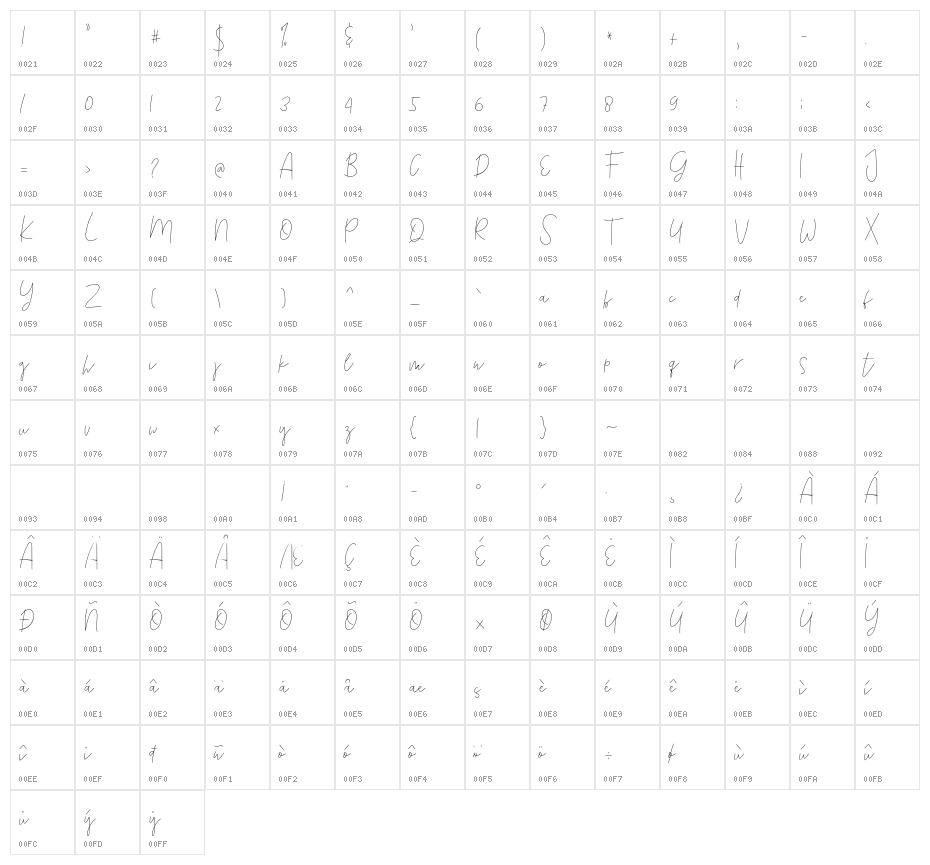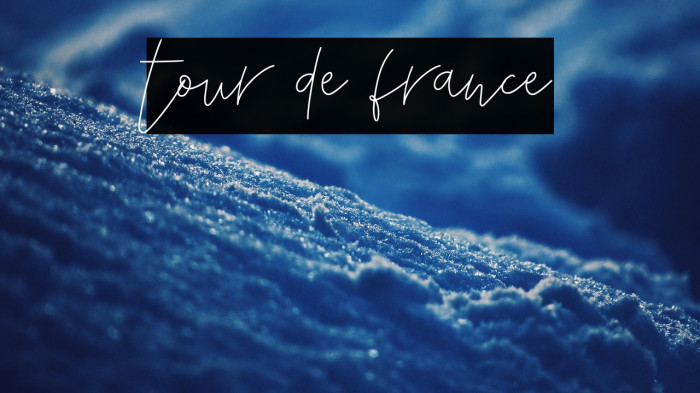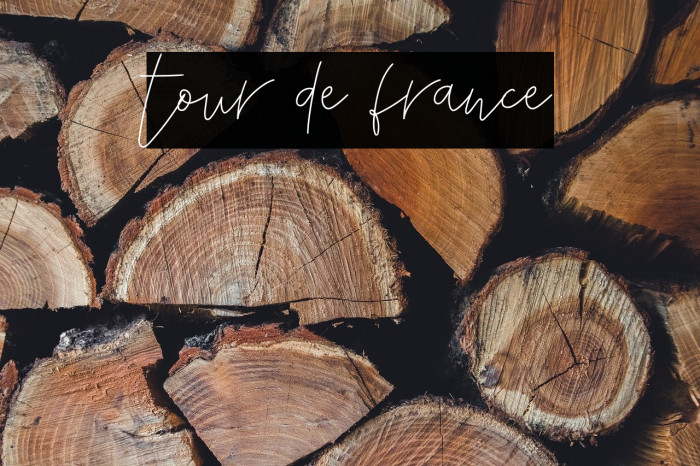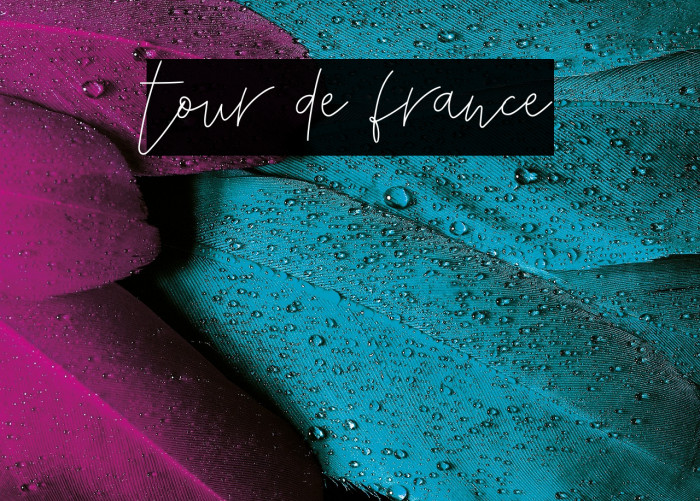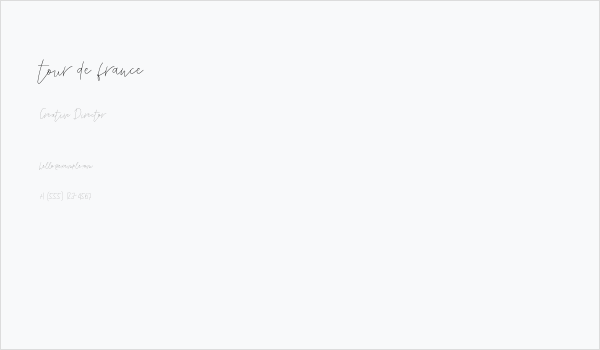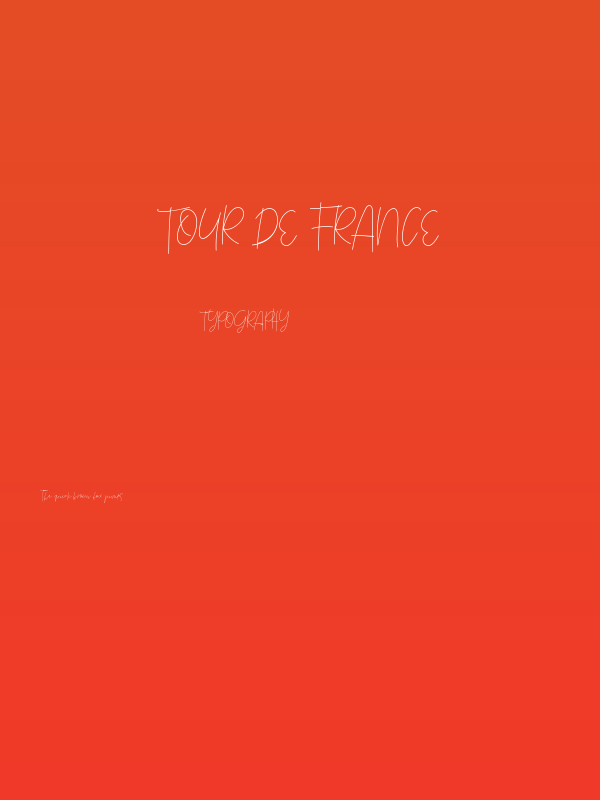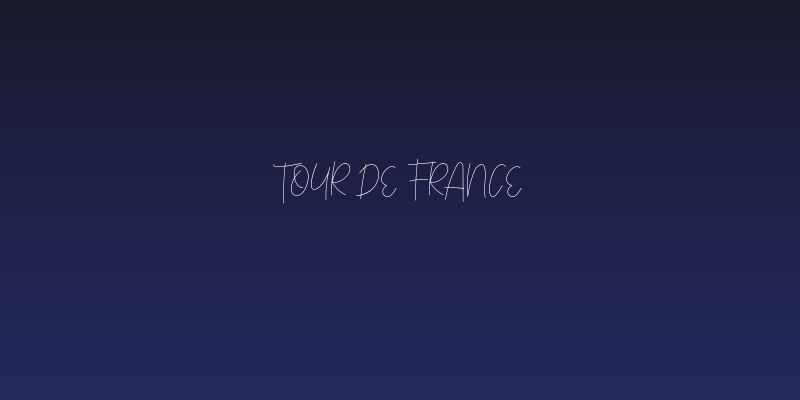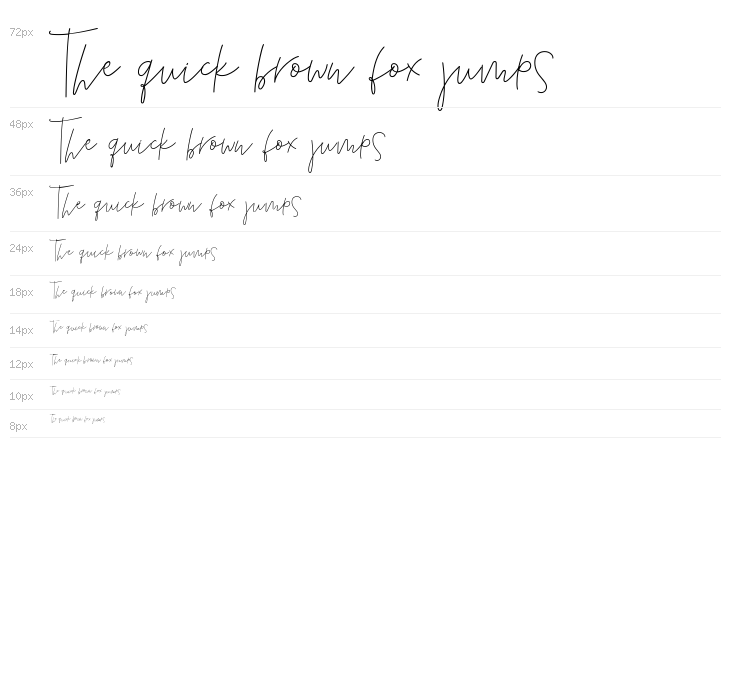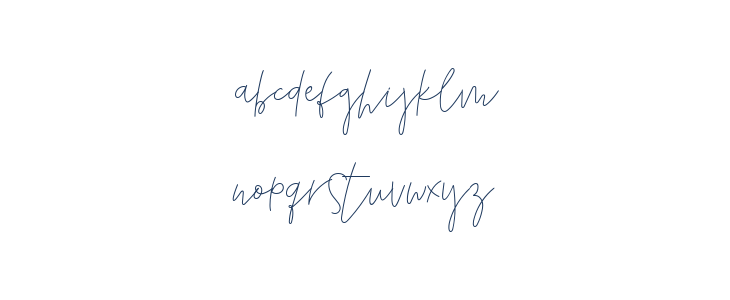
tour de france Font
tour de france Description
This font features a whimsical, handwritten style with a playful and casual aesthetic. The letters are tall and slender, with a slight slant that gives them a dynamic and lively appearance. The strokes are thin and consistent, creating a delicate and airy feel. The uppercase letters are distinct and slightly exaggerated in height, while the lowercase letters maintain a cohesive flow with subtle variations in size and form. The numerals are clear and legible, matching the overall style of the alphabet. Special characters are included, maintaining the same playful and informal tone. This font is perfect for projects that require a personal touch, such as invitations, greeting cards, or creative branding.